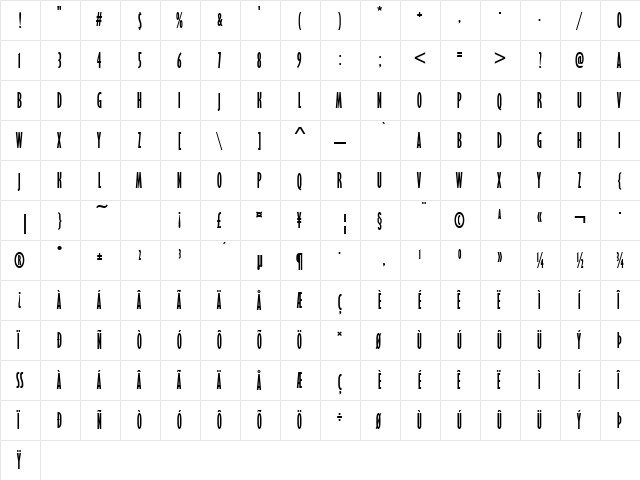
URWGalaxieComDBol Regular
Design Context for URWGalaxieComDBol Typeface
URWGalaxieComDBol offers clean, dependable letterforms without strong stylistic allegiance, making it a practical choice for designers who need flexibility.